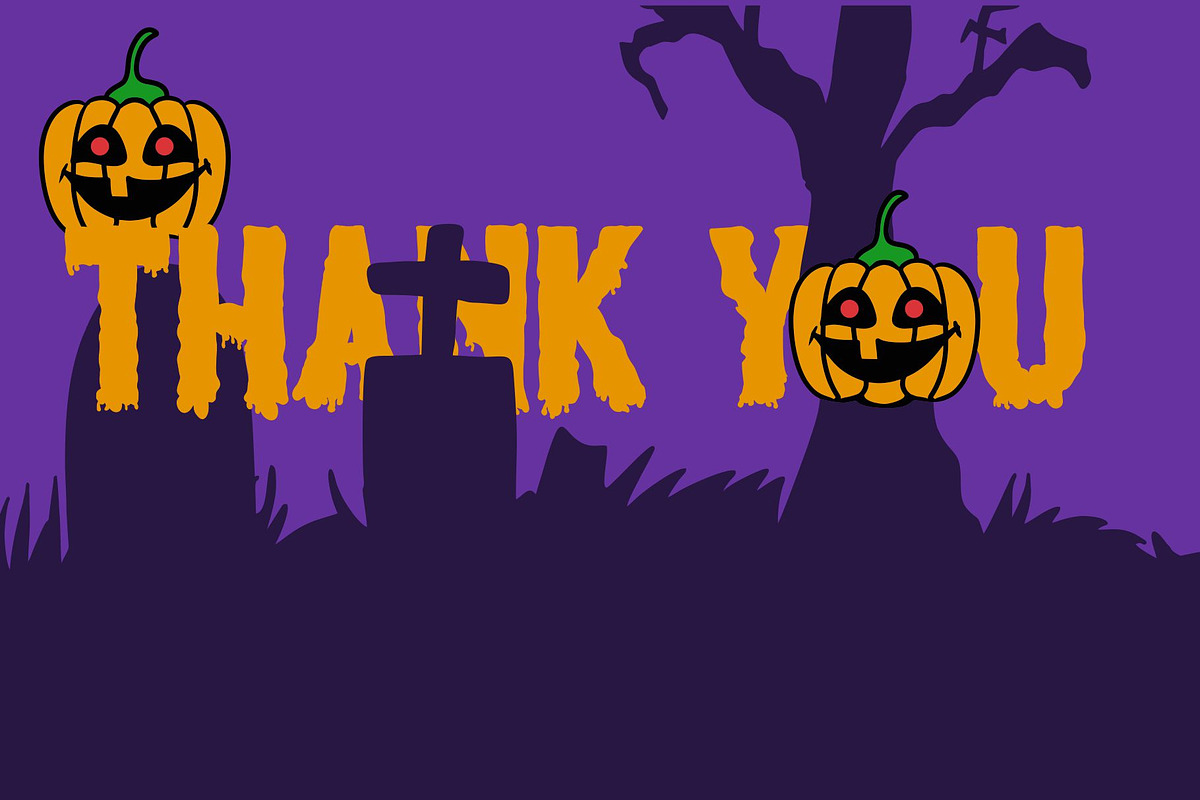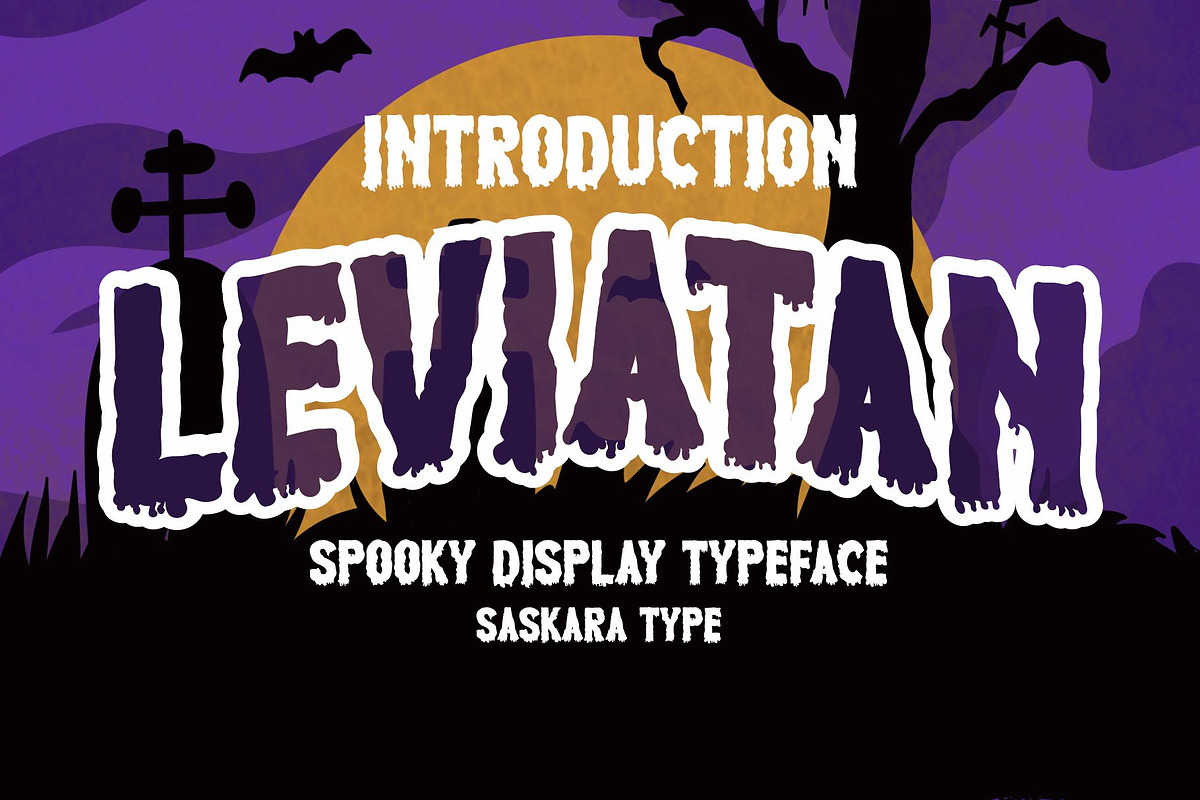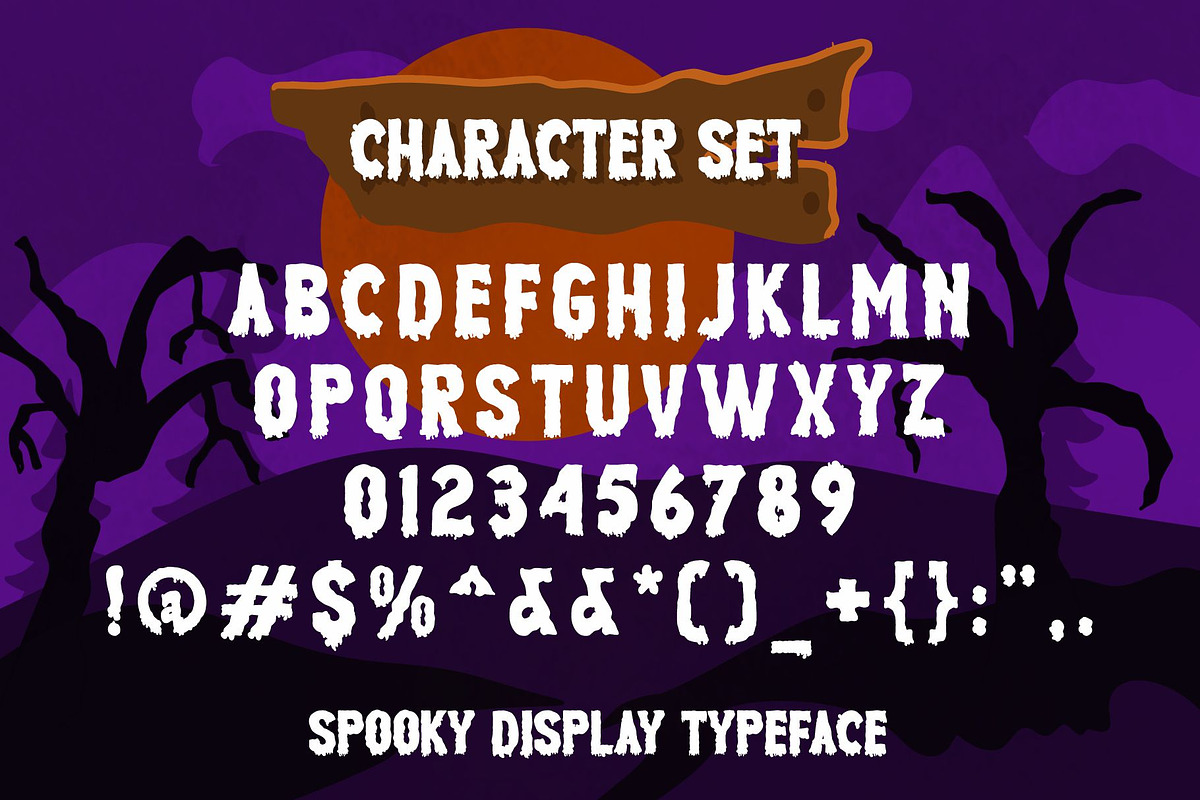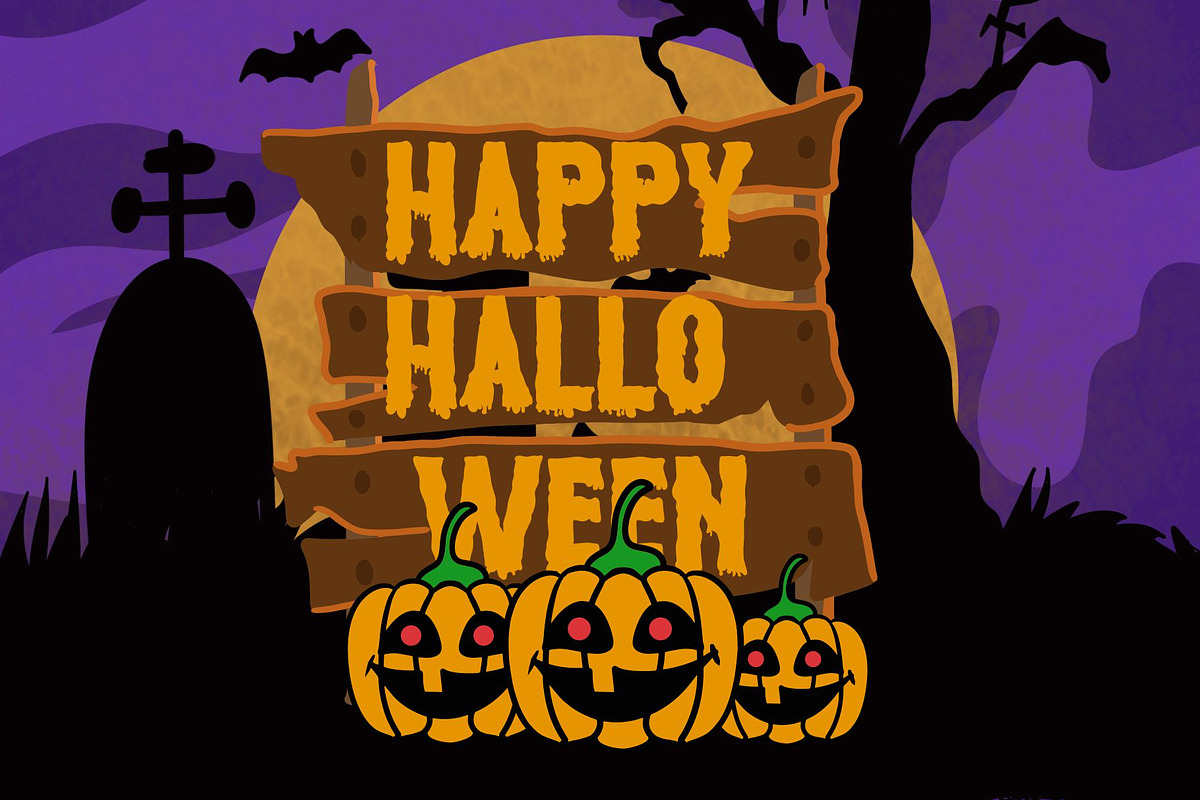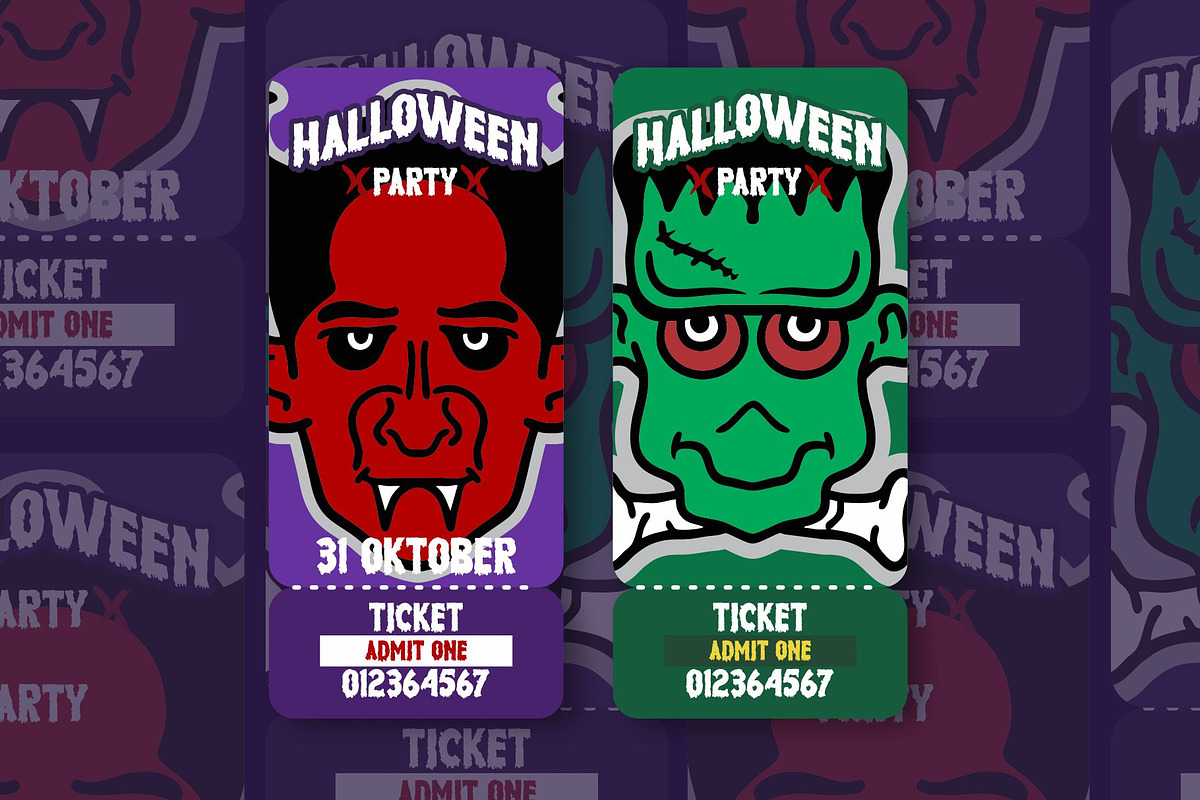
Leviatan
leviatan is a spooky display font featuring horror & scary characters This font is inspired by blood Add this font to your most creative ideas, and I'll give you a bonus sticker illustration